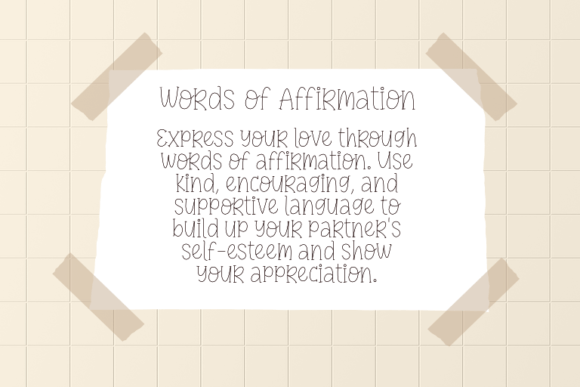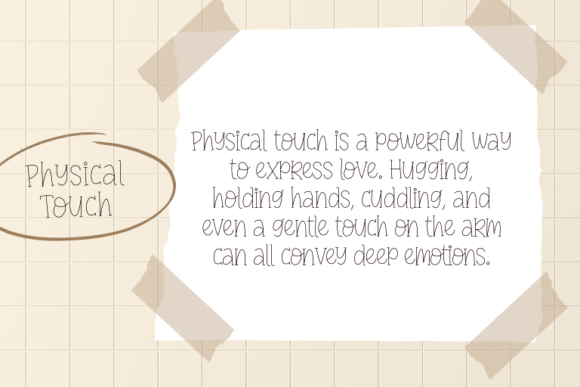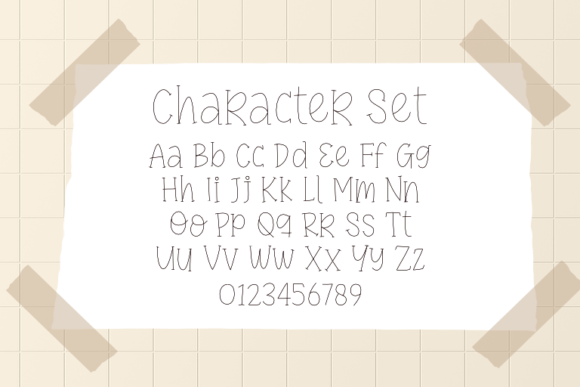
Lovely Wives is a quirky and fun single-line font. It will add an incredibly joyful touch to your designs. Add this cute font to each of your creative ideas and notice how it makes them stand out!
Lovely Wives Font